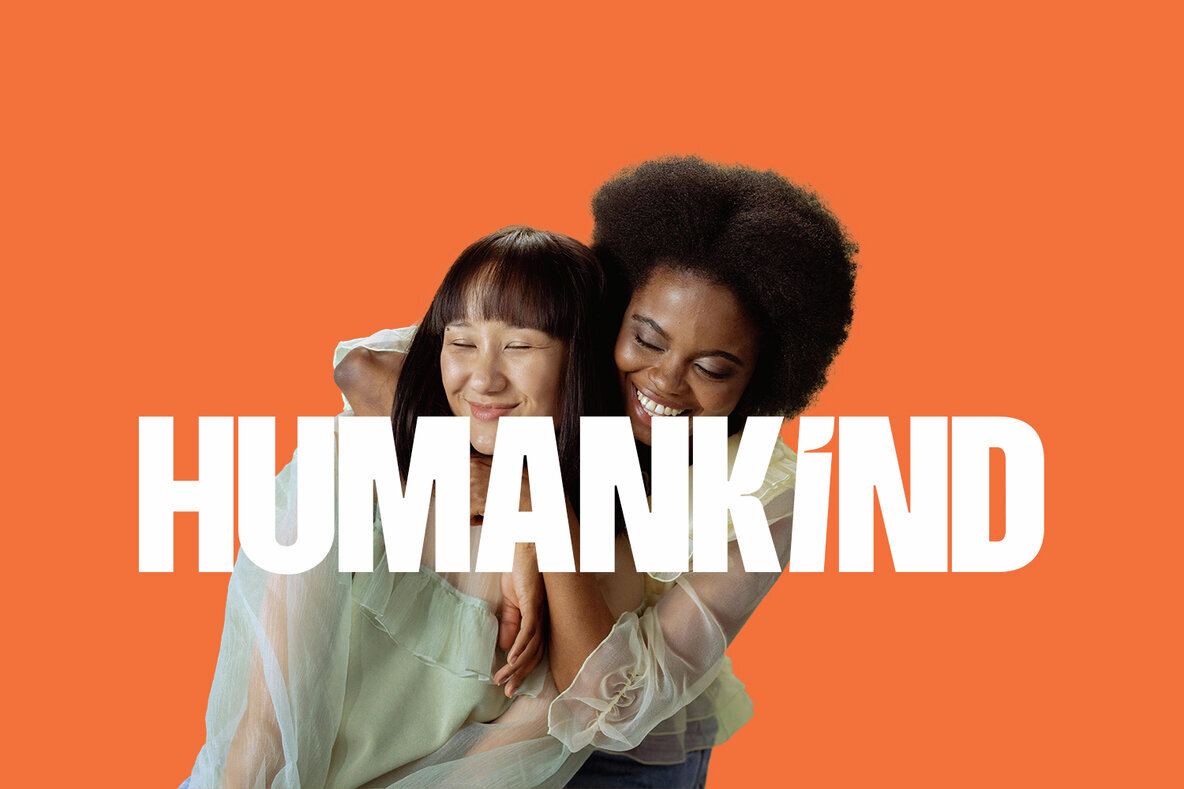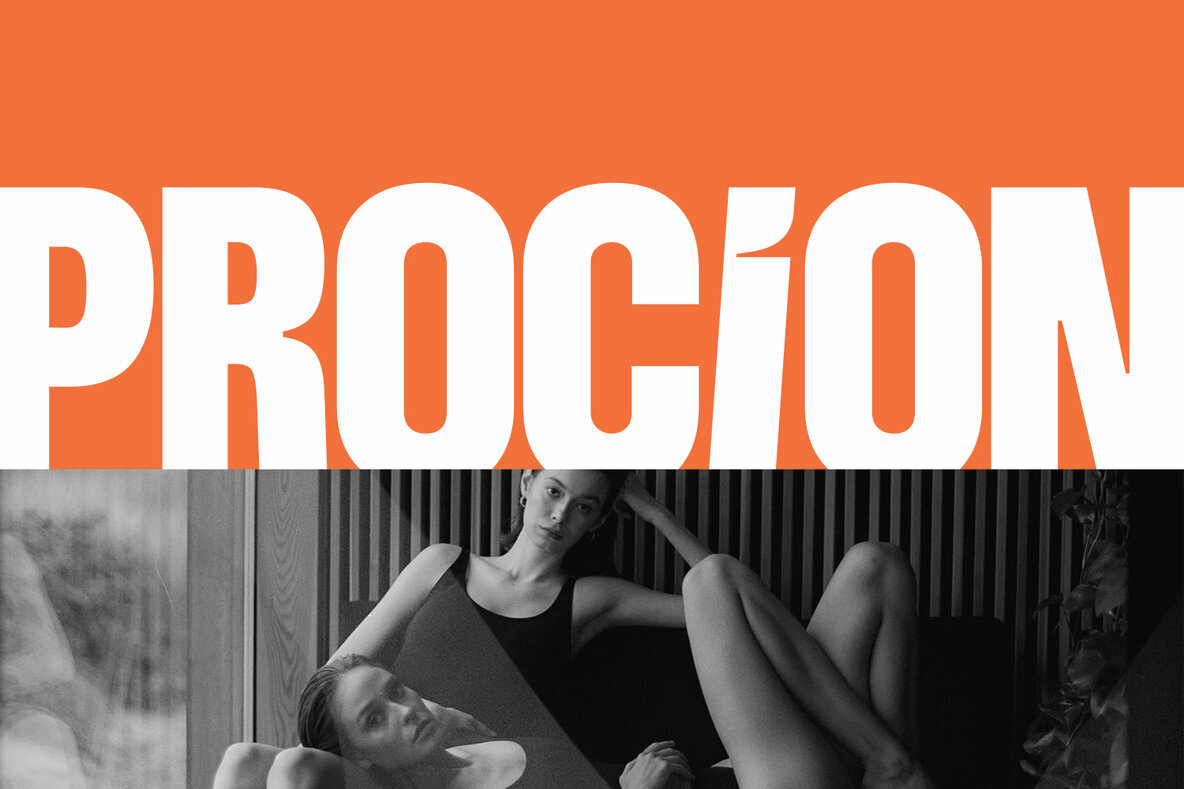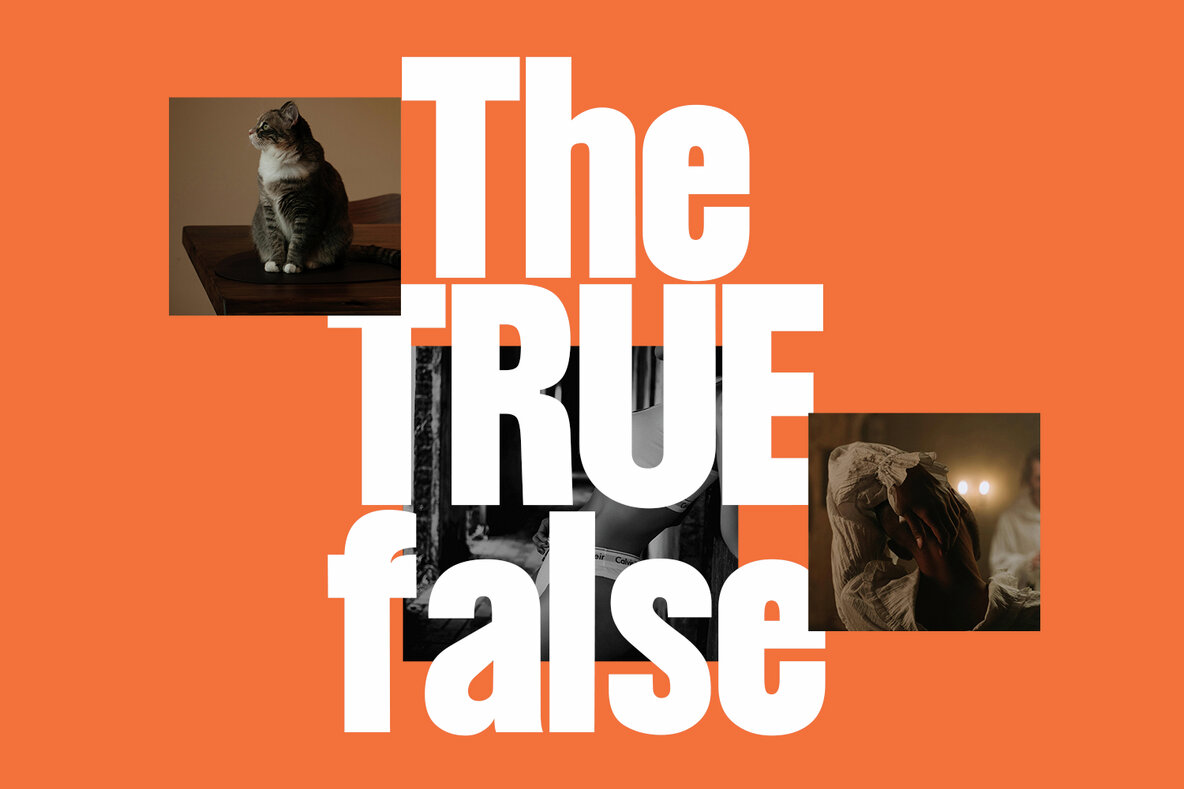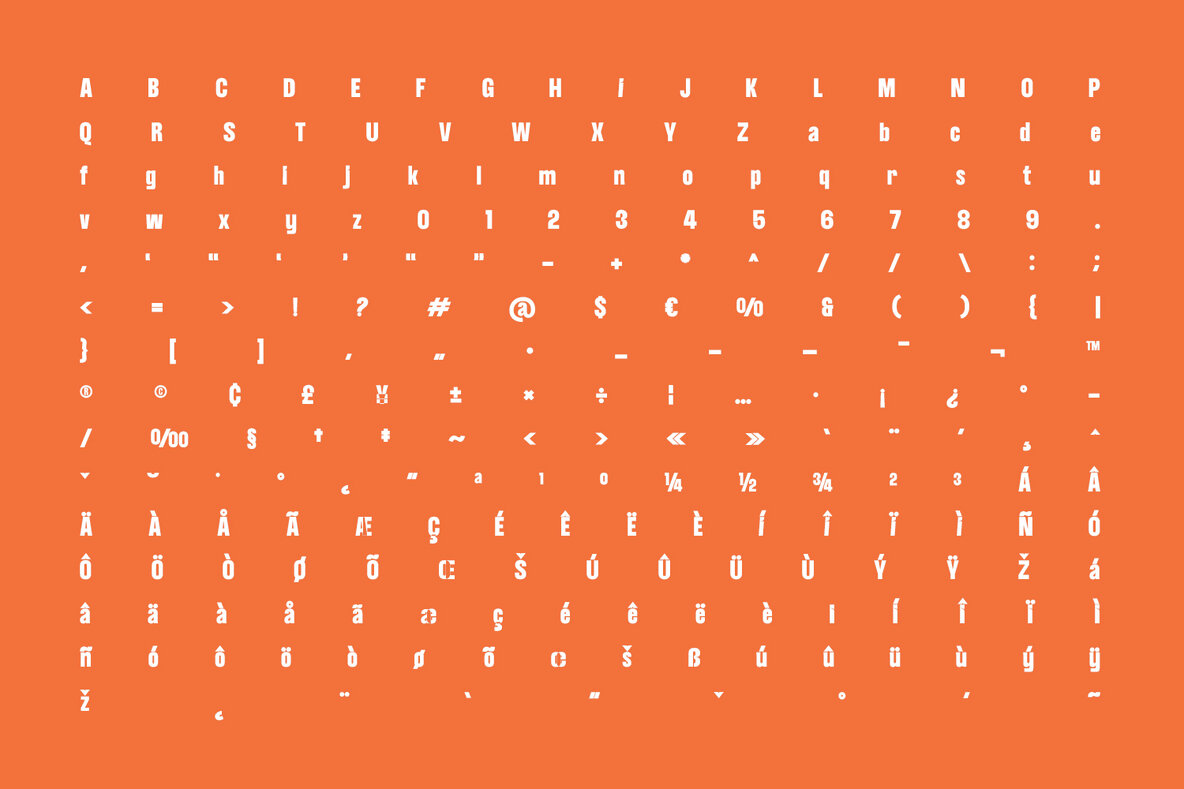
Briquette Font
Briquette Typeface Bold
Briquette Display is a contemporary typeface expertly designed to enhance brand identity. Meticulously crafted with mathematical precision, Briquette captivates and engages audiences, making it an ideal choice for those looking to make a strong impression. Its refined details make Briquette a versatile font suitable for a wide range of applications.
Perfectly tailored for both corporate and creative projects, Briquette offers flexibility across various platforms. Whether utilized in branding, logos, titles, headlines, or digital displays, this typeface ensures clarity and impact. Its adaptability extends to posters, servers, and digital ads, providing a cohesive look throughout your design endeavors. Explore the distinctive character of Briquette and elevate your projects with its compelling style and functionality.